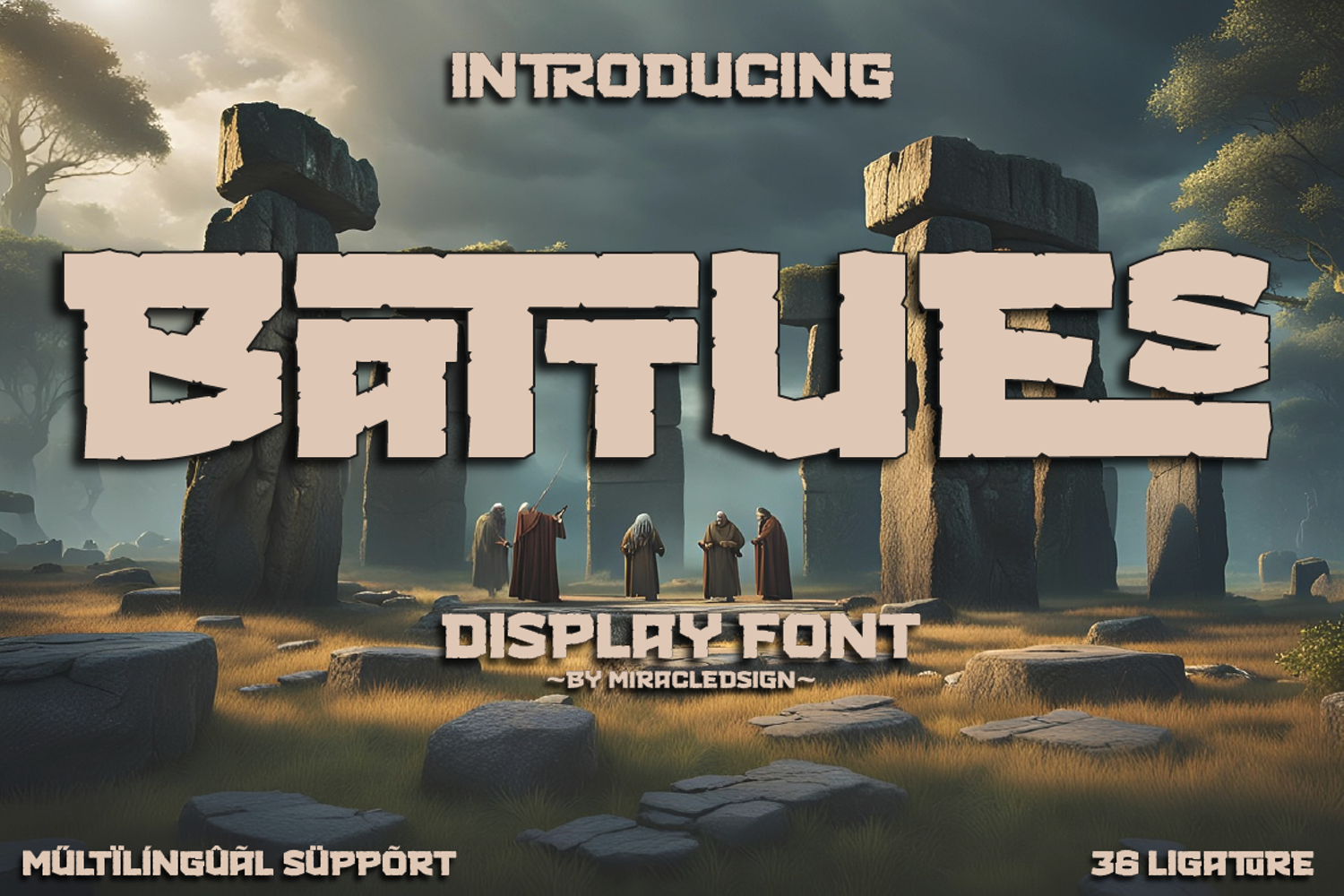
BATTUES
The "Battues" font is a bold, rough-textured display font, giving it an epic and dramatic feel. Its bold letters with slightly beveled edges are perfect for titles, posters, or fantasy and adventure-themed designs. The background image, featuring megalithic stones and a mysterious atmosphere, further enhances the character of this font. Discover its unique characteristics to bring each of your creations to life.